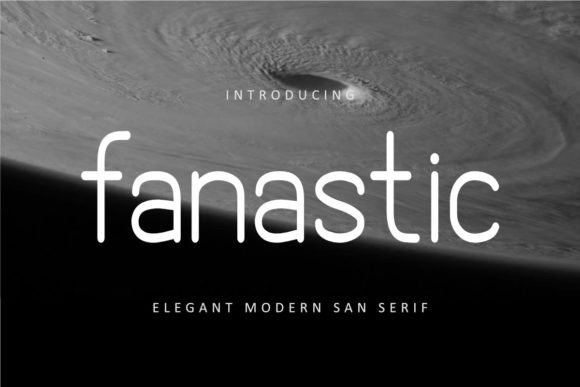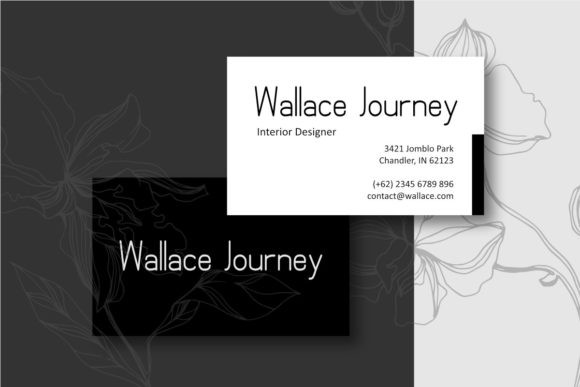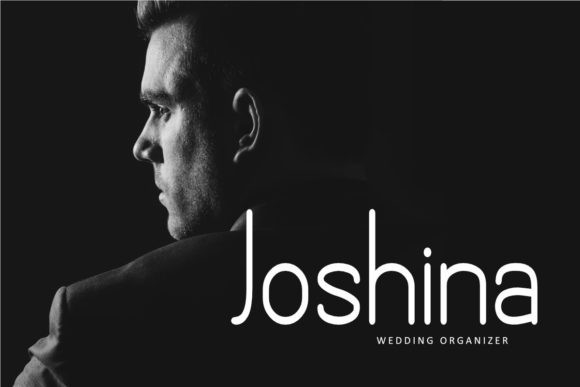
Fanastic Font
Fanastic is a minimal and modern sans serif font. It is perfect for any modern design purpose like fashion, magazine, headline, web, logo, and clothing. It will turn any design project into an eye catcher.